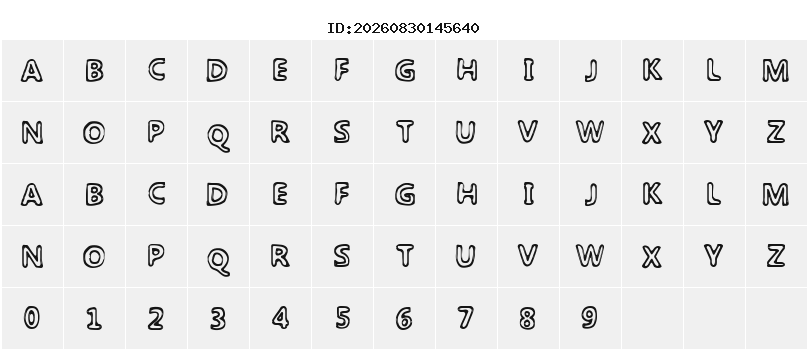
• Font Name: The Laguna
• Designer: Woodcutter Manero
The Laguna.ttf is a modern, elegant sans-serif font designed for ultimate readability and visual harmony. Perfect for branding, headlines, web design, and print materials.